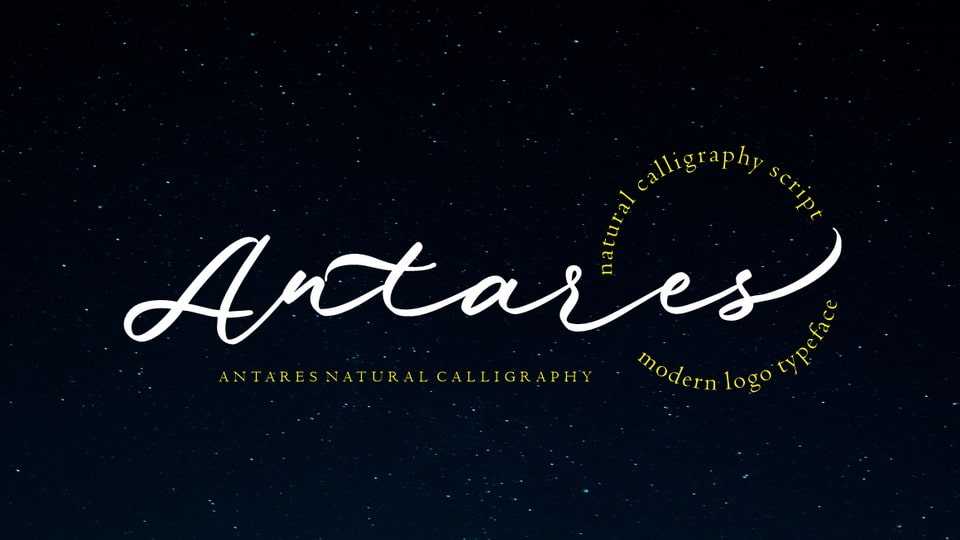
Download Antares font, a modern, dynamic handcrafted typeface that also has beautiful OpenType features. Antares font is great for branding, logo, clothing, posters, magazines and other design projects.